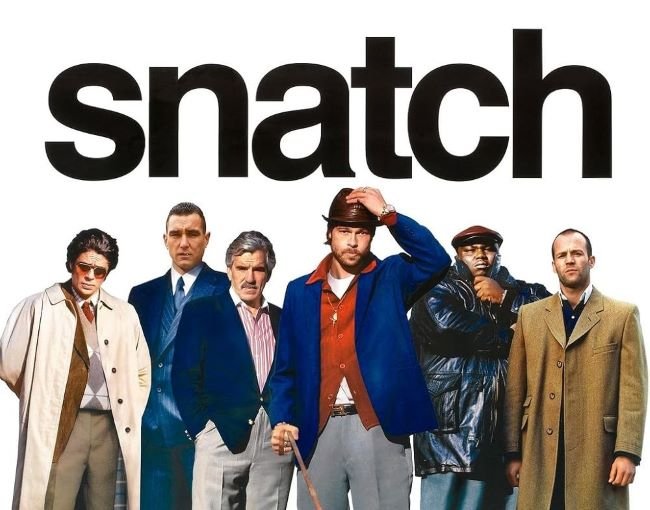
Snatch font is a typographic statement of intent — clean, undecorated, and completely in control, which is fitting for Guy Ritchie’s razor-sharp 2000 crime caper. The title card uses Helvetica at its most uncompromising: no styling, no distress, just the raw authority of a typeface so confident it doesn’t need to try. Three freely available alternatives capture that same no-nonsense grotesque register at different points on the spectrum: Arimo for broad digital compatibility, Roboto for a slightly more contemporary humanist touch, and Inter for precision-engineered screen legibility at every size.
The typographic lesson here is that maximum attitude doesn’t always require maximum decoration — sometimes the most aggressive design move is to set the title in a completely neutral typeface and dare the audience to question it. This bold restraint translates naturally to streetwear brand identity, underground event design, urban editorial layouts, crime fiction covers, sports and music industry branding, or any project that needs to project confidence so absolute that embellishment would only dilute it.